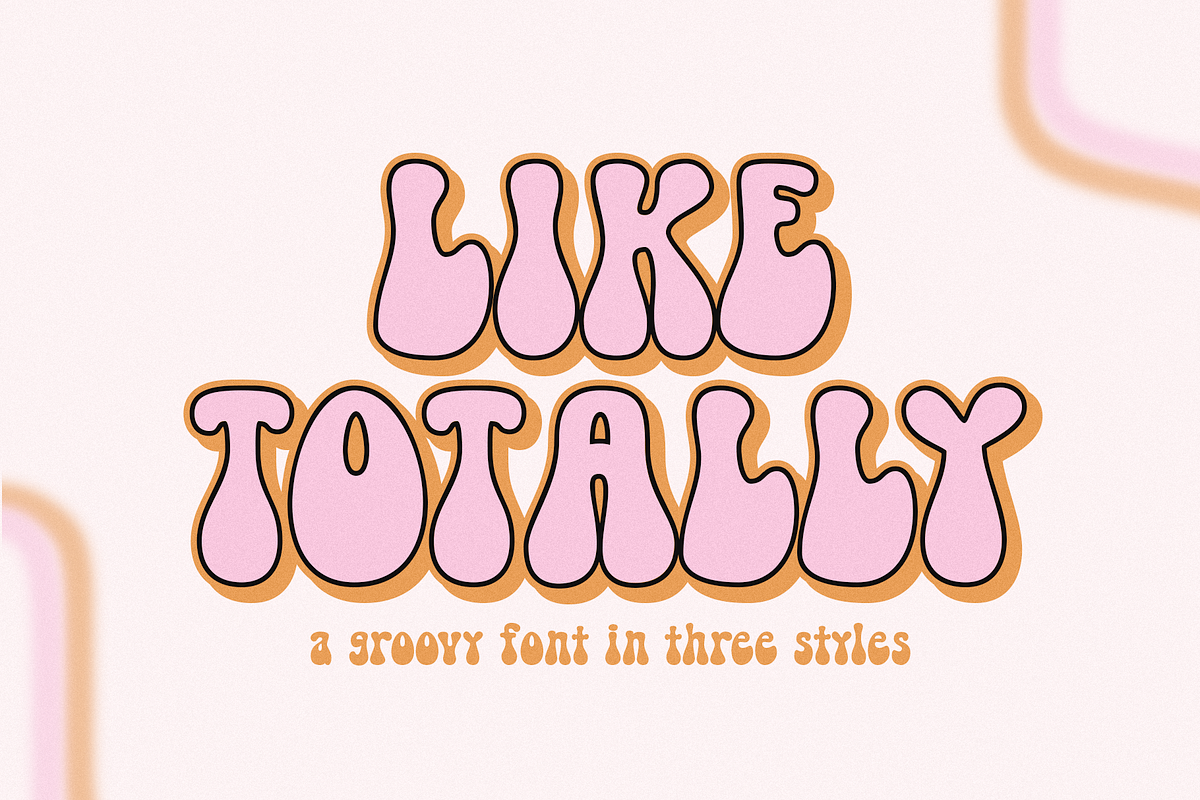
Like Totally | Retro Groovy Font Free Download
The Like Totally | Retro Groovy Font Free Download is a vibrant and fun typeface that brings a nostalgic retro feel to any project. Perfect for creating eye-catching logos, posters, t-shirts, and social media content, this font brings a groovy, funky vibe to your designs. Please note, for commercial use, a license must be purchased. You can download it for free for testing purposes.
With its bold, playful design, the Like Totally | Retro Groovy Font Free Download is ideal for projects that need a fun and energetic touch. Whether you're designing for a retro-themed event, creating music-related graphics, or working on any creative project that requires a pop of vintage flair, this font will make your designs stand out with its unique style.